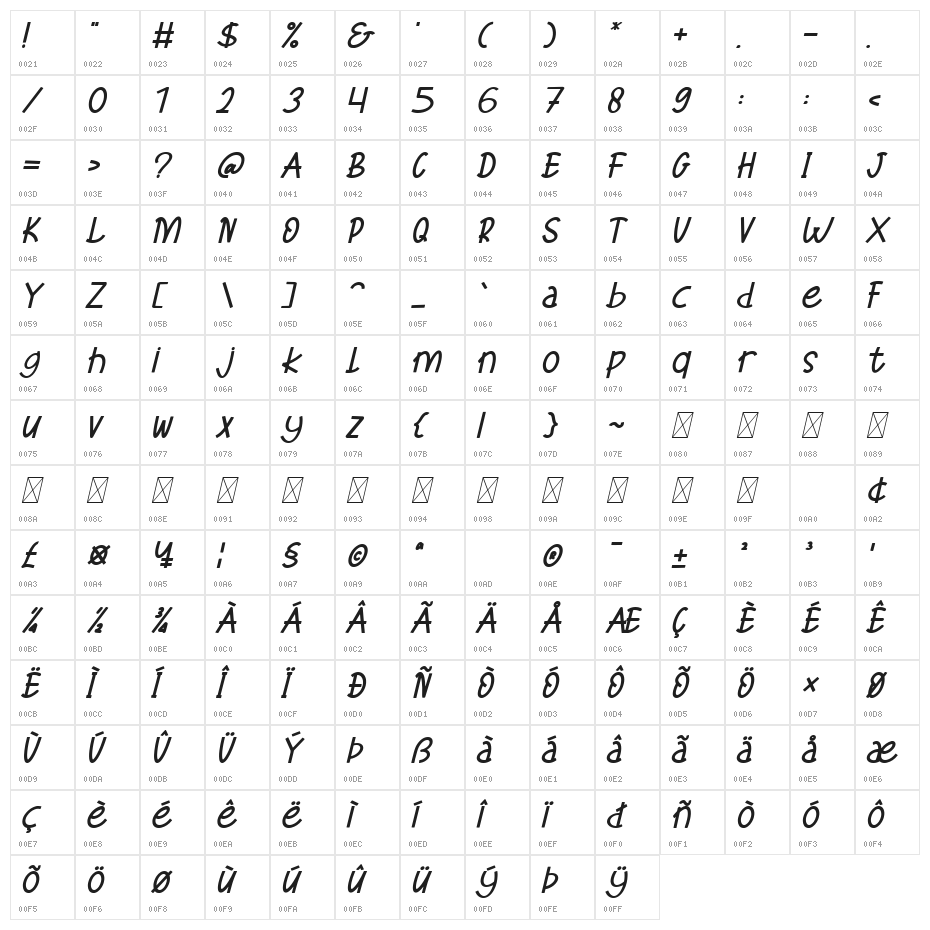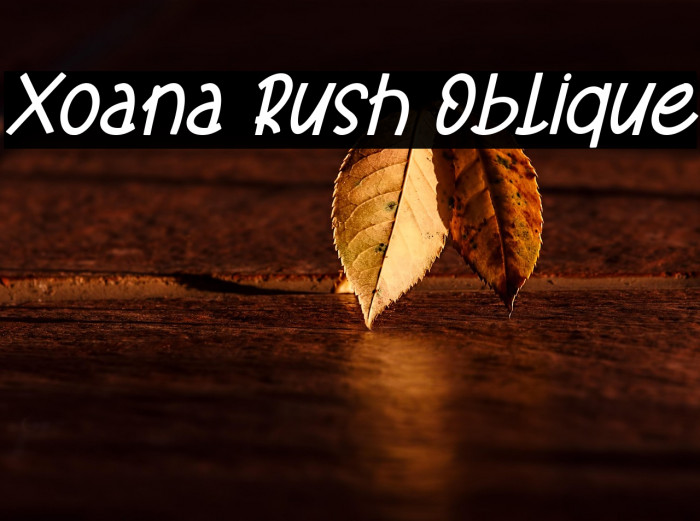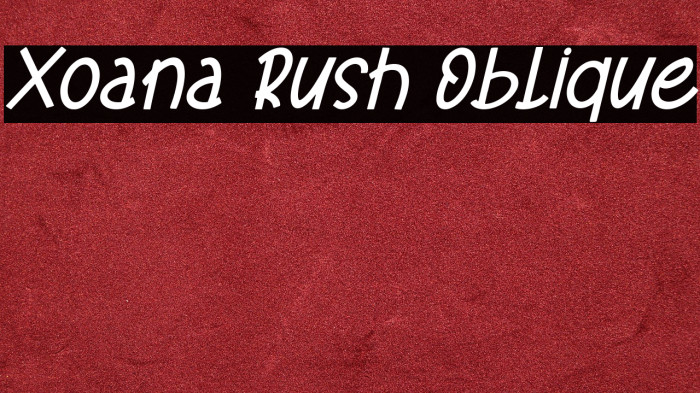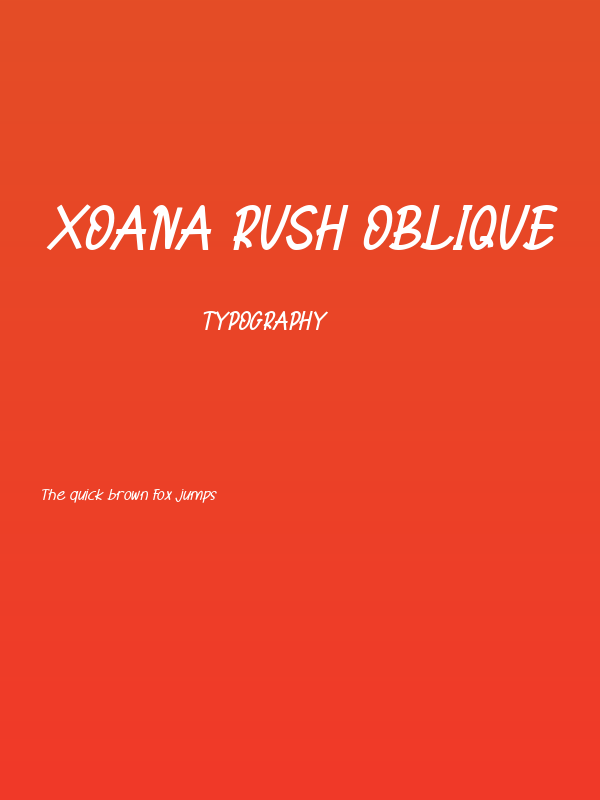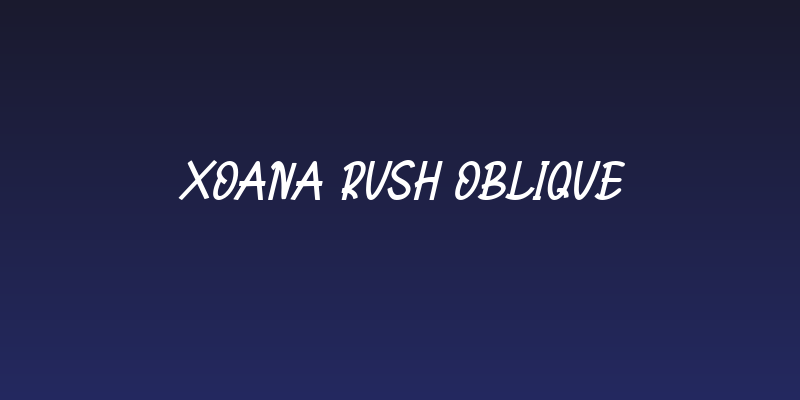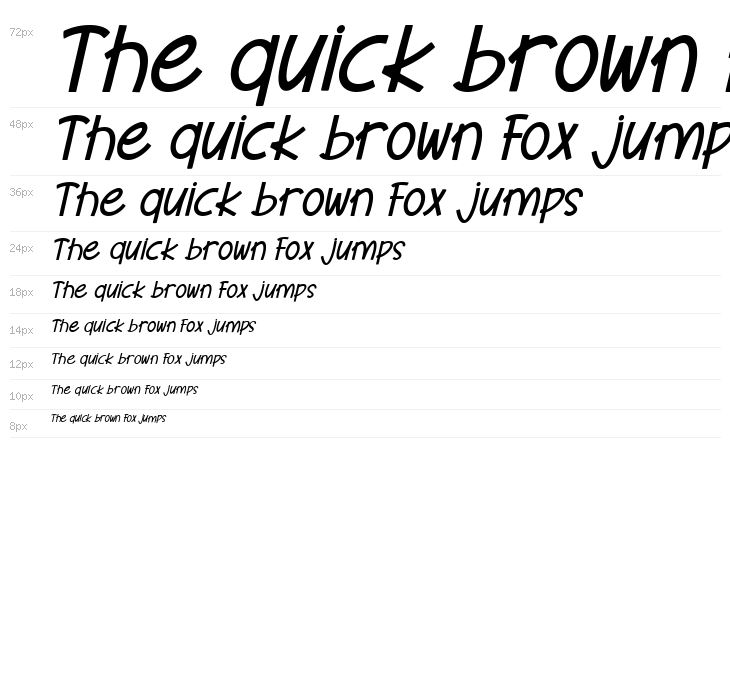
Xoana Rush Oblique Font
Xoana Rush Oblique Description
This font exhibits a dynamic and energetic style with a pronounced oblique slant, giving it a sense of motion and urgency. The characters are bold and slightly condensed, with smooth, flowing curves that suggest a handwritten quality. The uppercase and lowercase letters maintain a consistent style, with rounded edges and a slight tilt that enhances readability while adding a playful touch. The numerals and special characters follow the same design principles, ensuring a cohesive look across all text elements. This font's unique style makes it suitable for projects that require a lively and informal appearance.
| Proposed Projects | Ideal for branding, advertising, posters, and any project needing a dynamic and informal touch. |